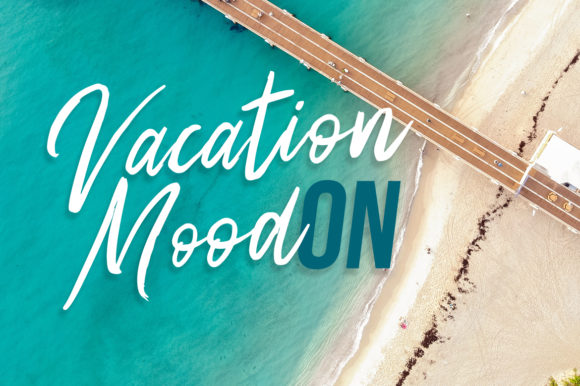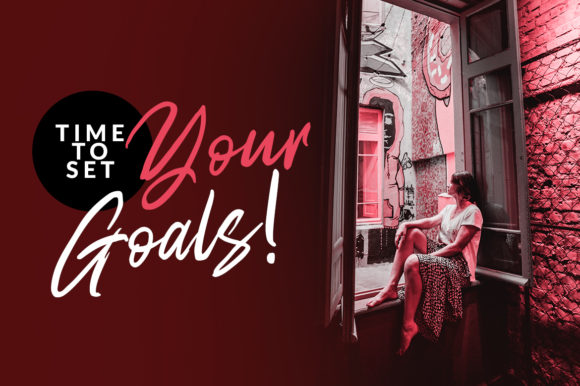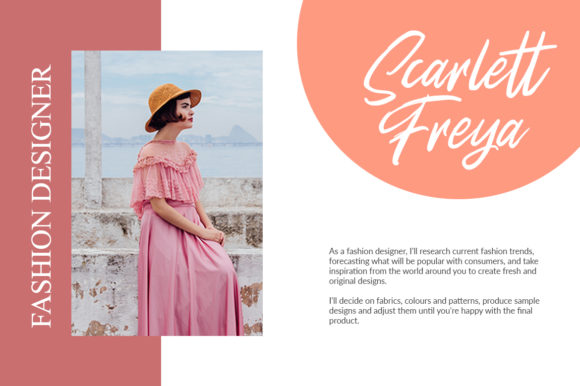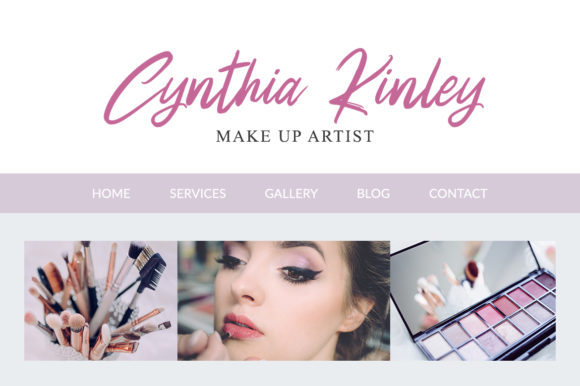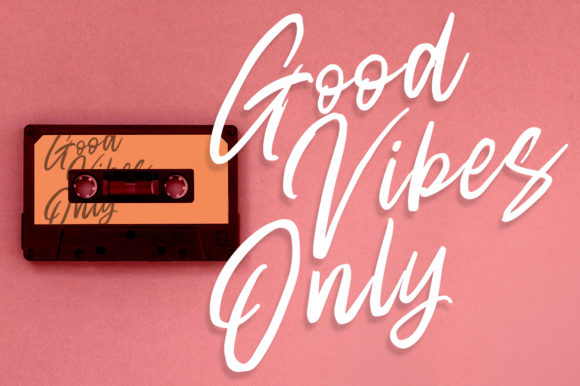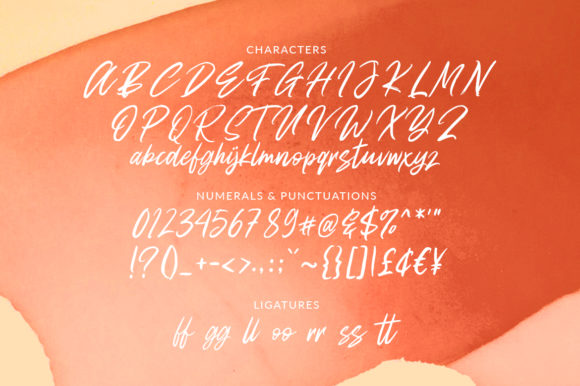
HomeScript FontsBesttiny Font Script Fonts Besttiny Font FacebookXPinterestWhatsApp Besttiny Font Poster 2 Besttiny Font Poster 3 Besttiny Font Poster 4 Besttiny Font Poster 5 Besttiny Font Poster 6 Besttiny Font Poster 7 About Besttiny Font Besttiny is a unique and charming script that will turn any design project into a true standout! DOWNLOAD ON CREATIVE FABRICAThis font is sold and delivered by Creative Fabrica. Font Canyon may earn a commission if you buy through this link. People also explored Best Strong Font Jungle Queen Font Levon Font Builder Font Nabilla Spooky Mummy Font Galfego Font Chantily Font Maove Font 606 0 TagsBesttiny Font Previous articleMaldonis FontNext articleRockside Font LEAVE A REPLY Cancel reply Comment: Please enter your comment! Name:* Please enter your name here Email:* You have entered an incorrect email address! Please enter your email address here Website: Save my name, email, and website in this browser for the next time I comment. Personal Use Free Adelfa Personal Use Free Read more about this font Gunplay Personal Use Free Read more about this font Better Together Duo Personal Use Free Read more about this font Antaro Personal Use Free Read more about this font BLOG 5 Fonts That Will Dominate Design Trends in 2026 5 Fonts for 2026 That Will Dominate Design Trends Typography plays a critical role in visual communication, and as we look ahead to 2026, itβs... Best Fonts for T-Shirt Design β Top 2025 Picks Exploring Font Trends Transform Your Website: Elevate Your Typography with 7 Best Web Font Generators